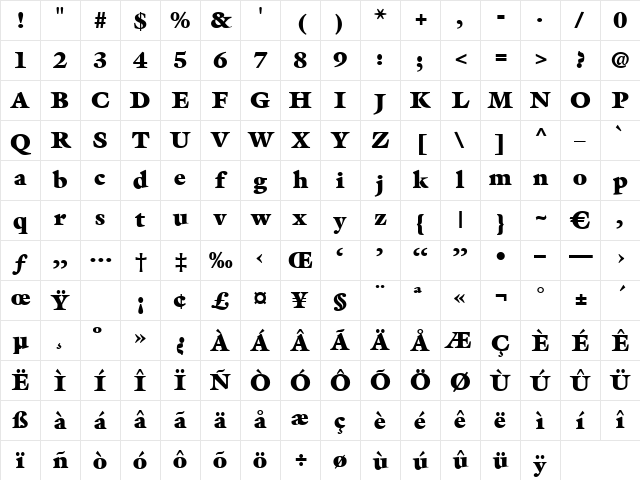
Deventer Regular
Design Context for Deventer
Deventer is a composed and adaptable typeface that performs quietly and consistently across a wide range of design contexts.